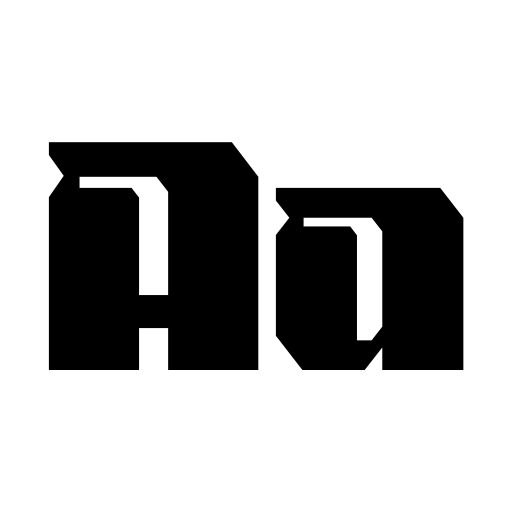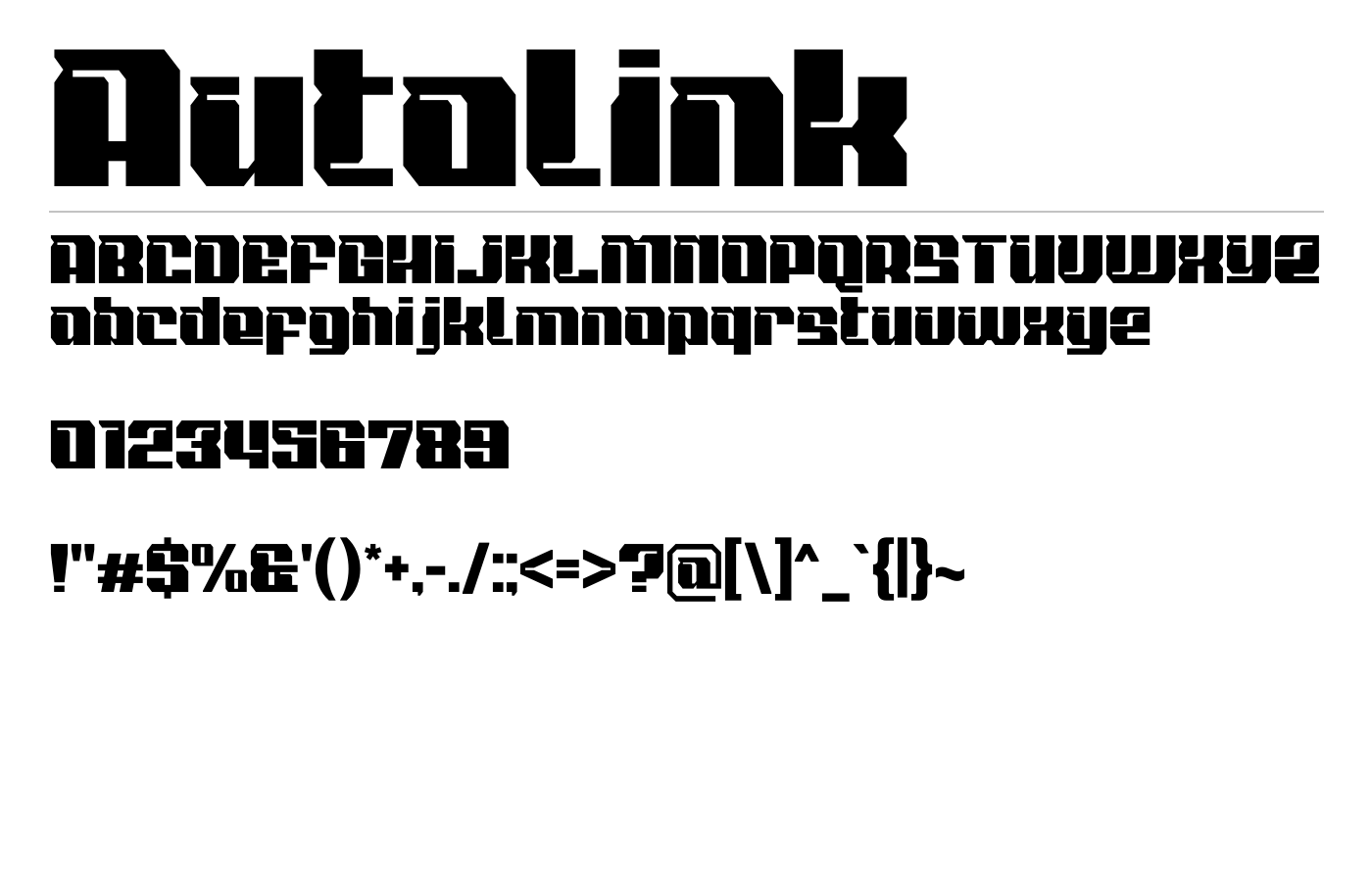
Autolink is a bold, condensed slab serif font with a strong geometric and mechanical feel, featuring sharp angles and heavy weight with low contrast between strokes. Its compact letterforms and distinctive cut-out details create a futuristic and industrial vibe, making it ideal for striking headlines, branding, and display use where a modern, tech-inspired personality is desired. This font works best in contexts that call for bold attention and a unique, edgy style.
Autolink Font
About Autolink Font
| Font family | Autolink Font |
| Designer | Muhamad Yusron Billah |